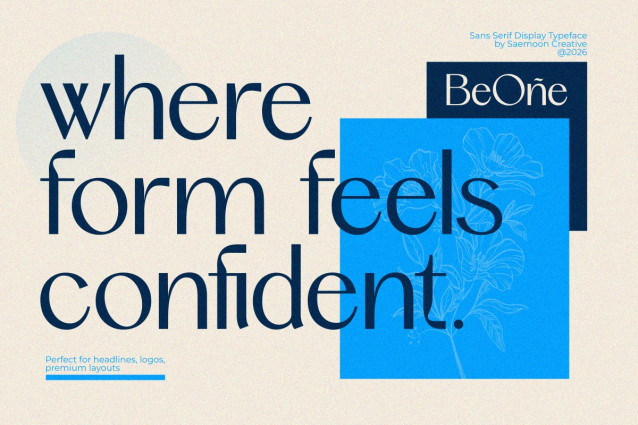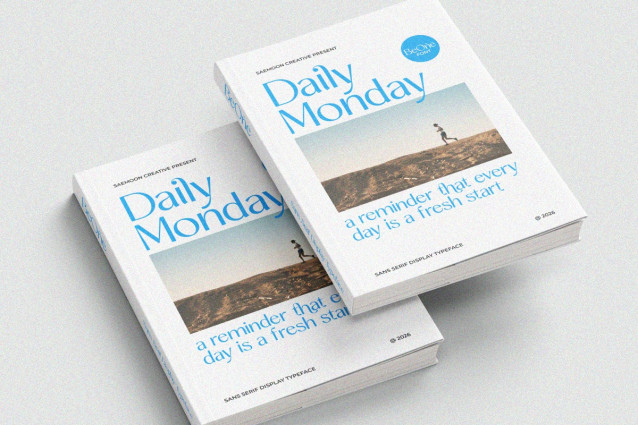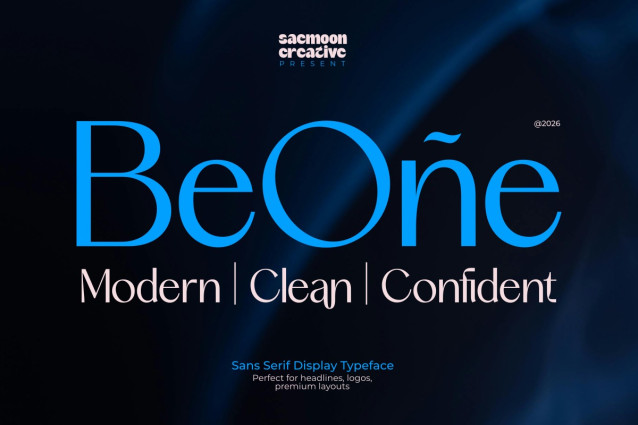
Beone Sans Font
Beone Sans Font is a modern sans serif display typeface built with a clean structure and a confident, contemporary personality. Its balanced proportions, smooth curves, and precise details create a refined look that feels both professional and expressive.
Designed with a rich set of ligatures, Beone Sans enhances common letter combinations to improve visual flow and add subtle uniqueness to your typography. These ligatures help elevate headlines, logos, and branding projects with a more premium and polished appearance.
Beyond aesthetics, Beone Sans is crafted for versatility. It performs beautifully across print and digital media, making it a reliable choice for modern branding systems, editorial layouts, fashion visuals, posters, and web design.